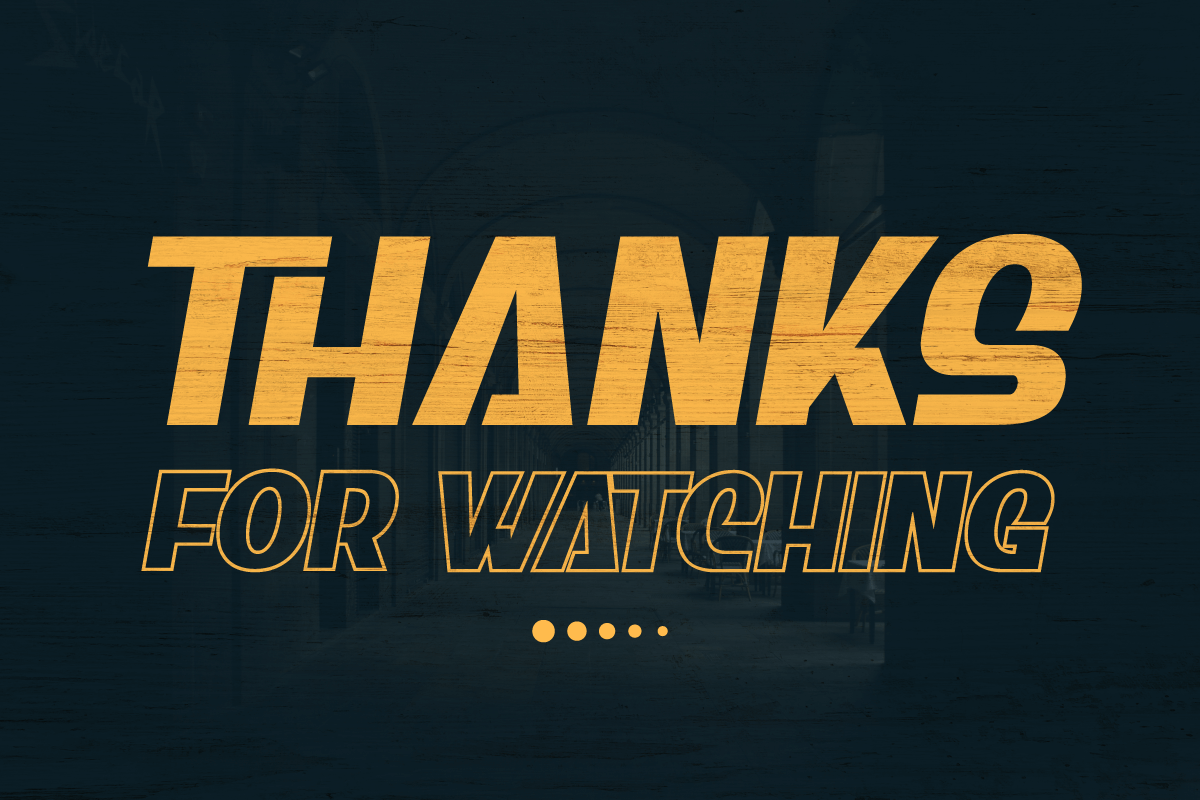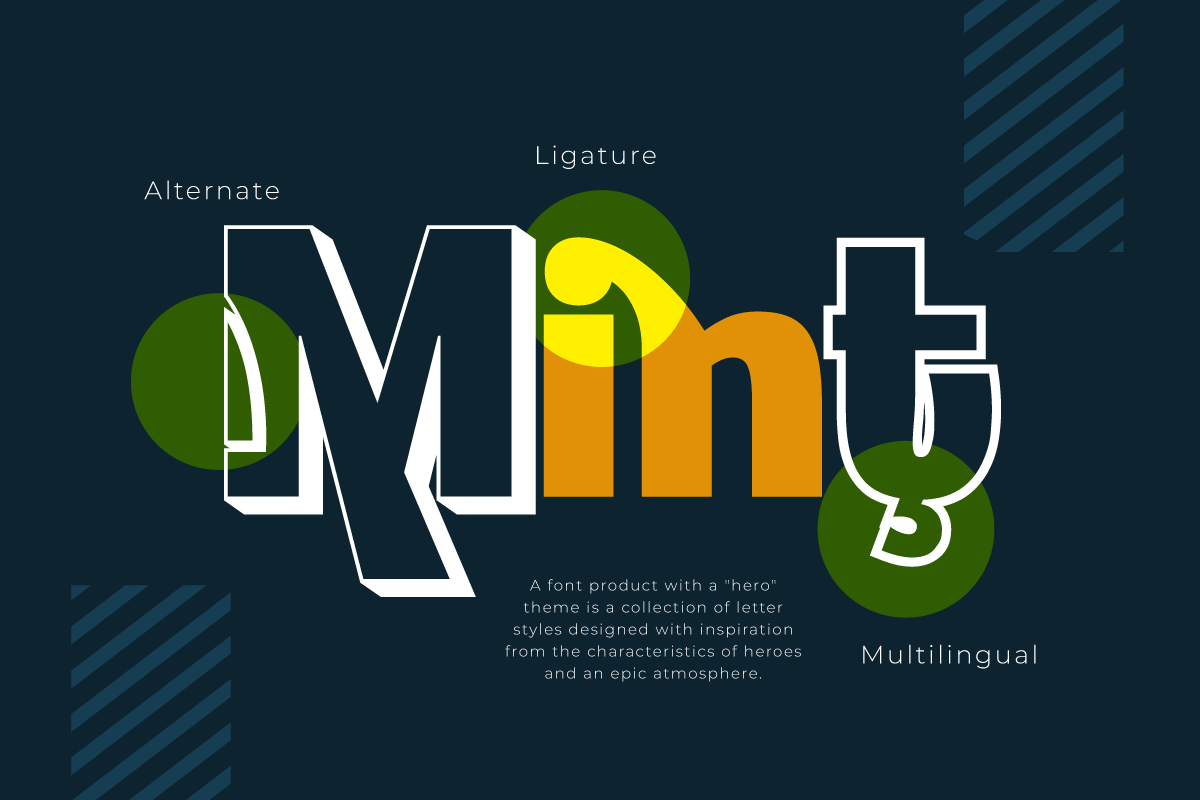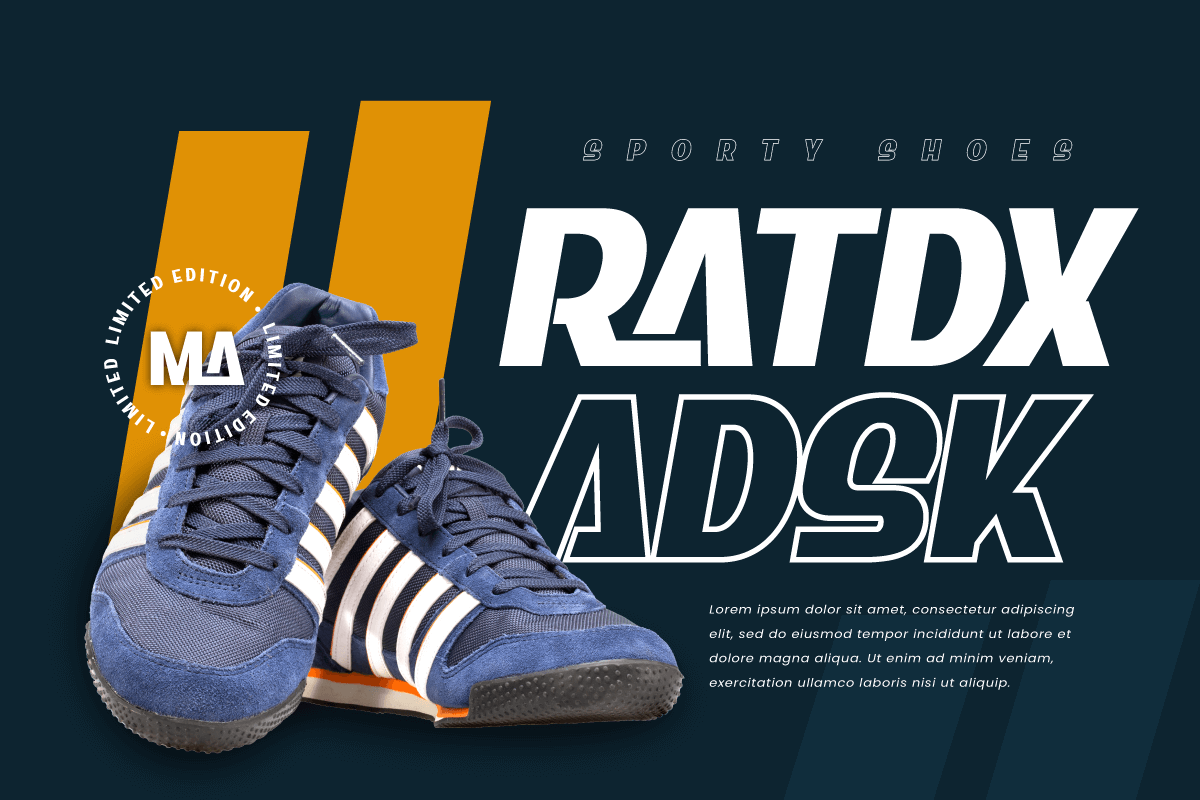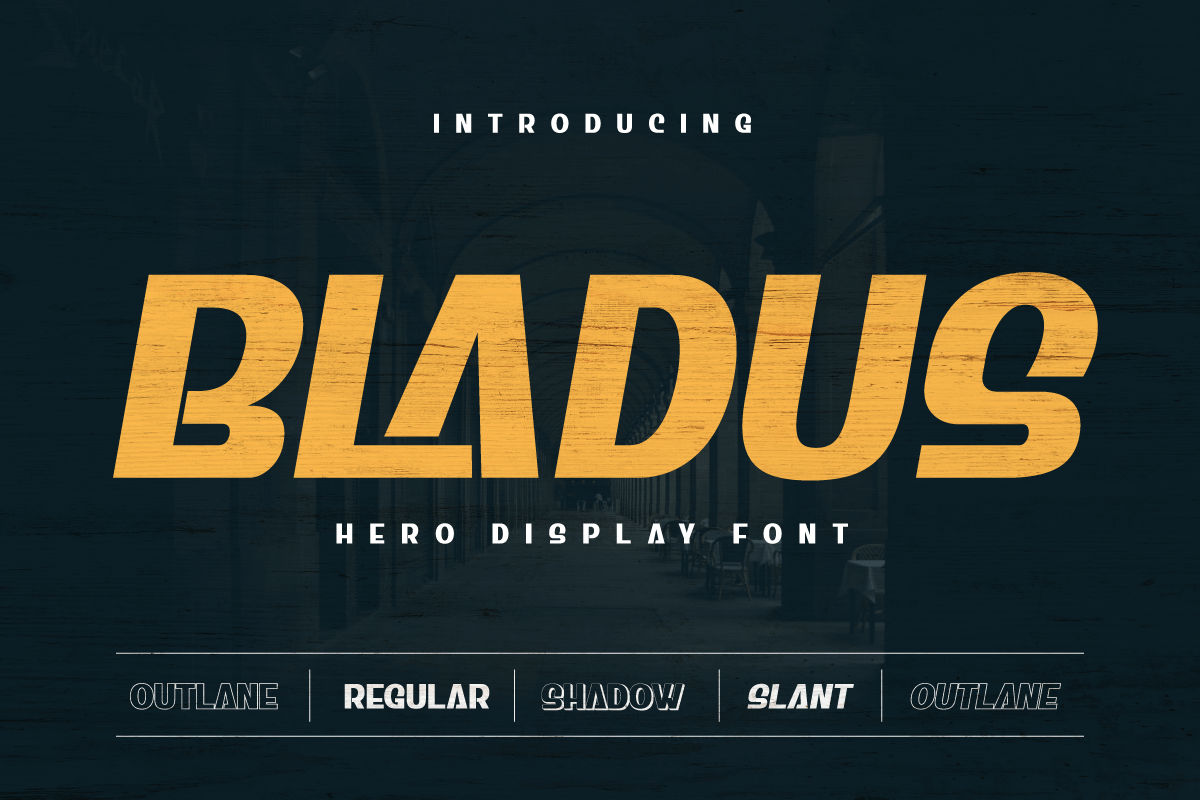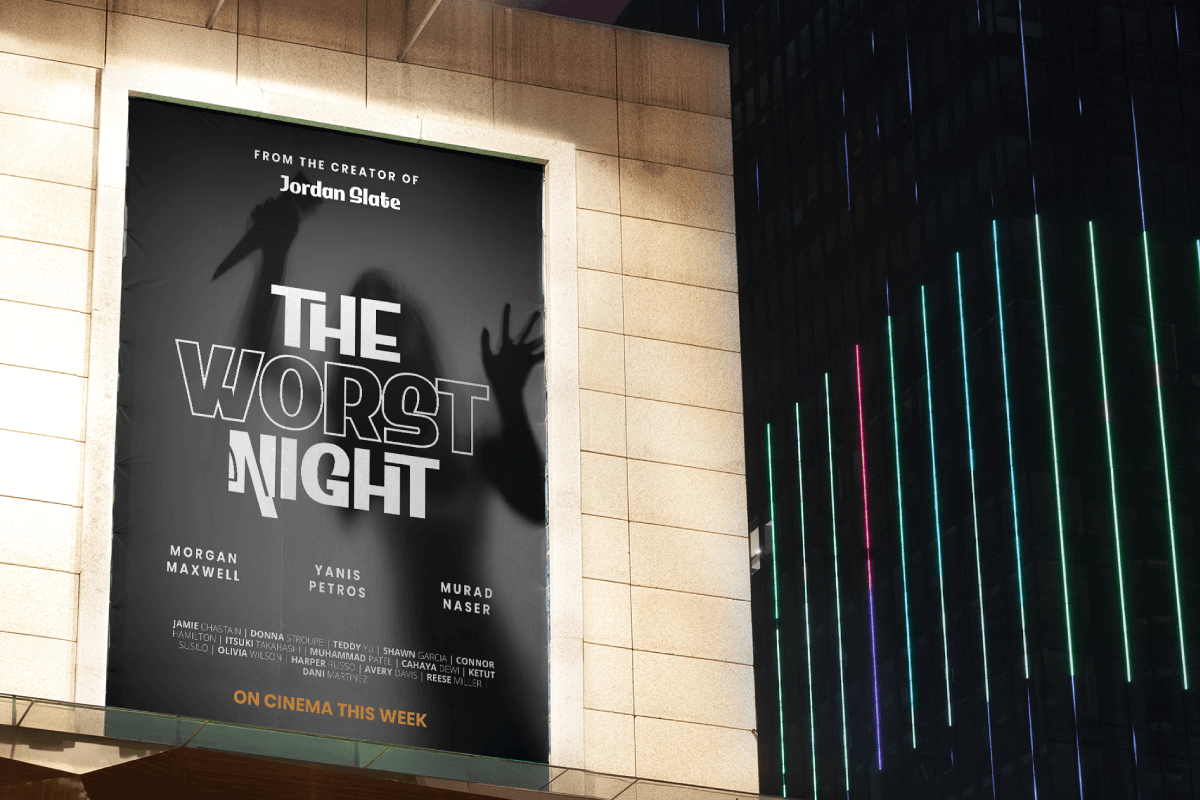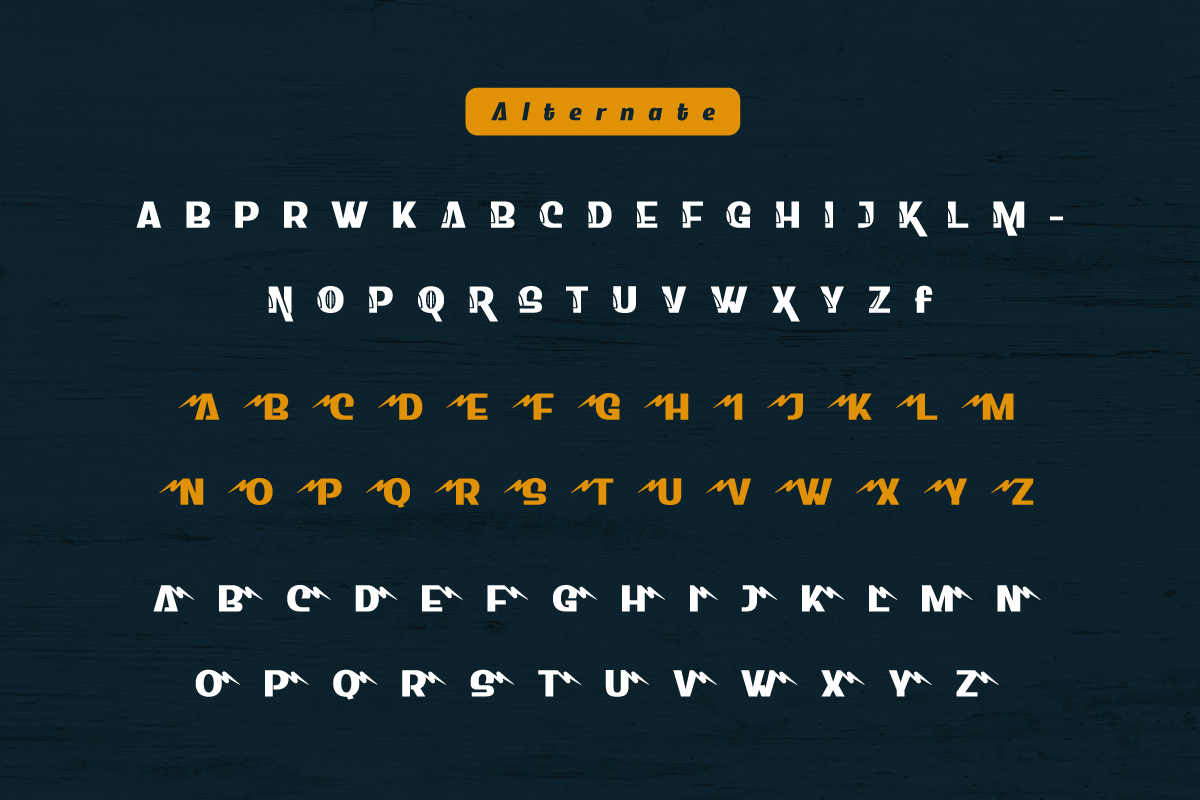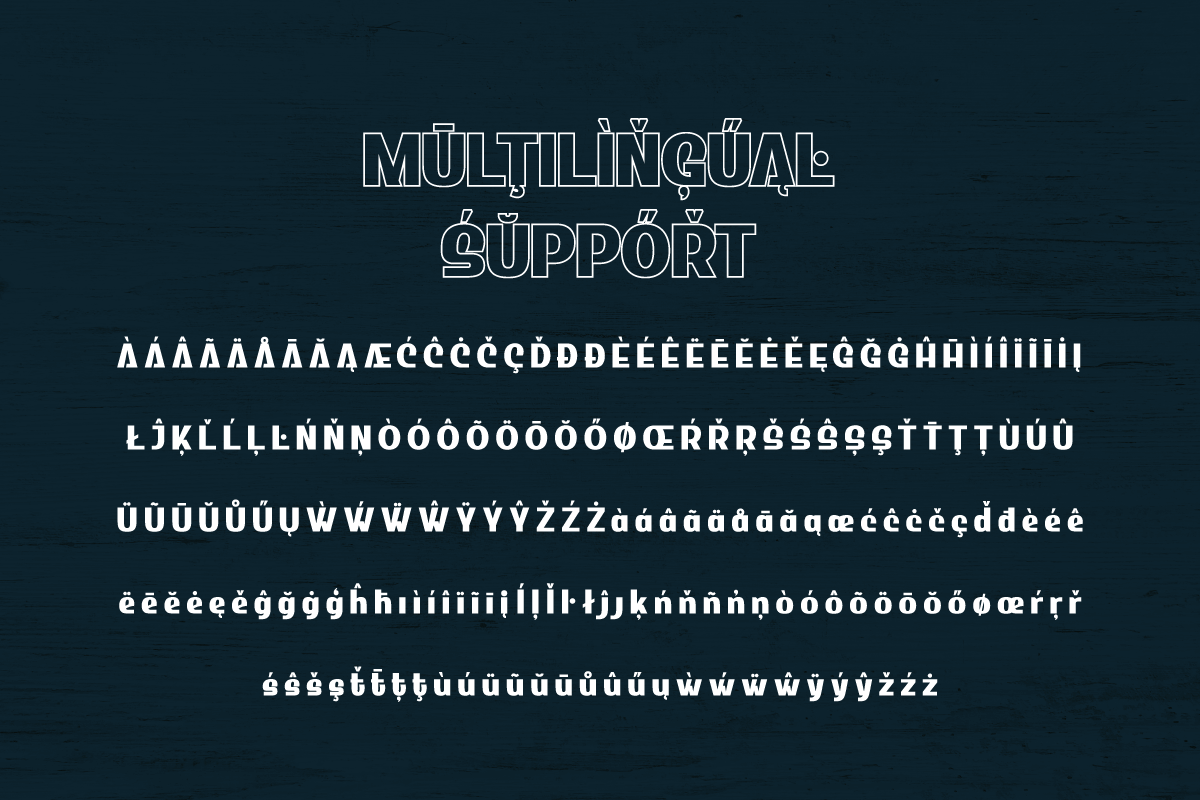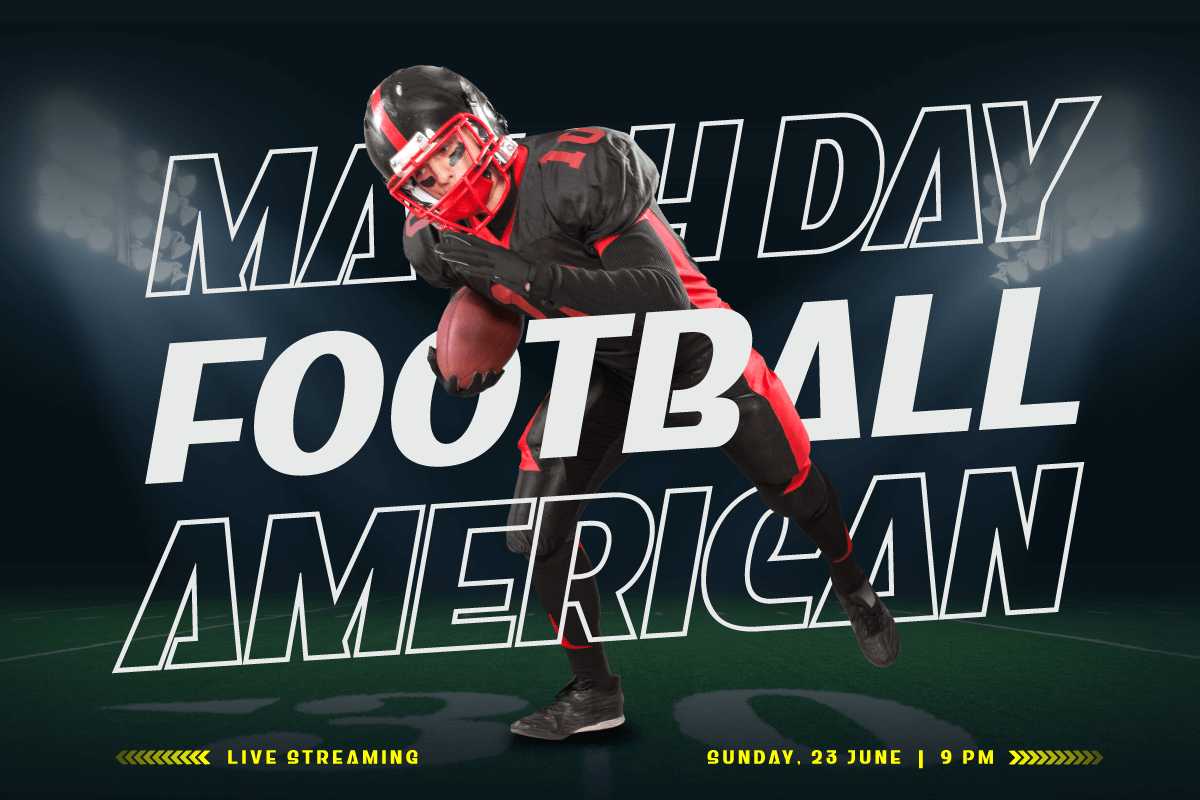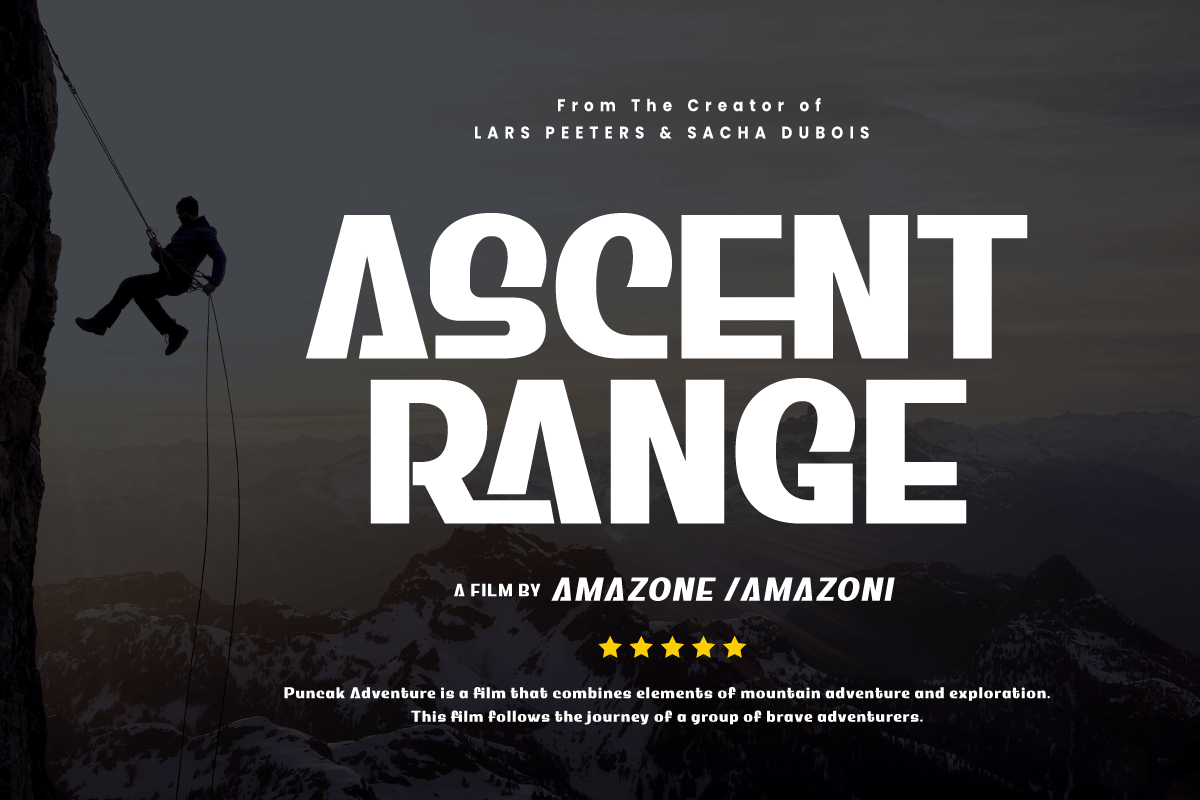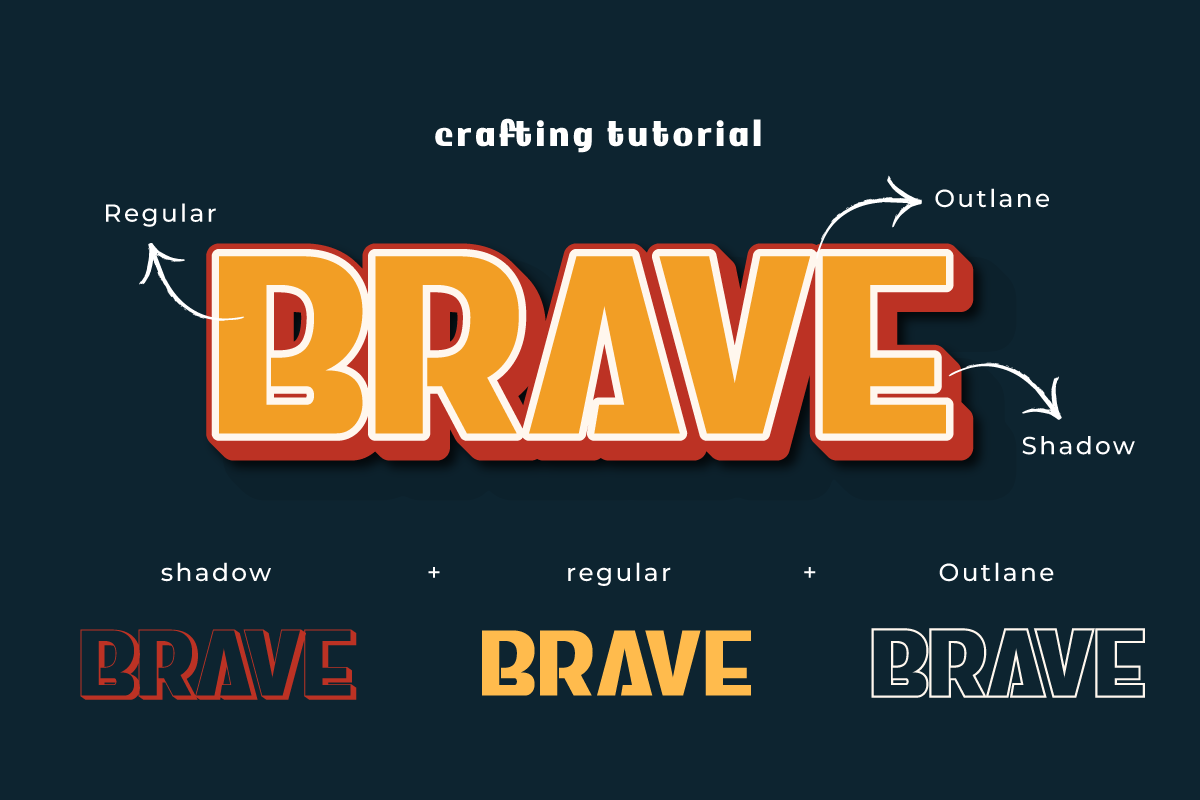
Bladus | Display Hero Font
Bladus is more than just a font; it is a symbol of courage that radiates through every character. With a jaw-dropping superhero display style, Bladus is the perfect solution for projects that require a stunning visual appeal.
With Bladus, you can take your film, game, and design projects to the next level. His strong and bold writing style will inspire courage and determination in all who see it.
Special features such as ligatures and alternates allow you to combine unique letter variations, creating looks that are unmatched. This creative freedom allows you to express ideas more broadly.
Bladus also supports multilingualism, allowing you to communicate with different languages and cultures. It’s a font that’s strong not only visually, but also in creating global connectivity.
With Bladus, your projects will feel an inspiring and powerful presence. So, if you’re looking for a font that exudes a heroic aura, Bladus is the right choice. Start bringing your boldness to design with Bladus now.
- Alternate, Ligature